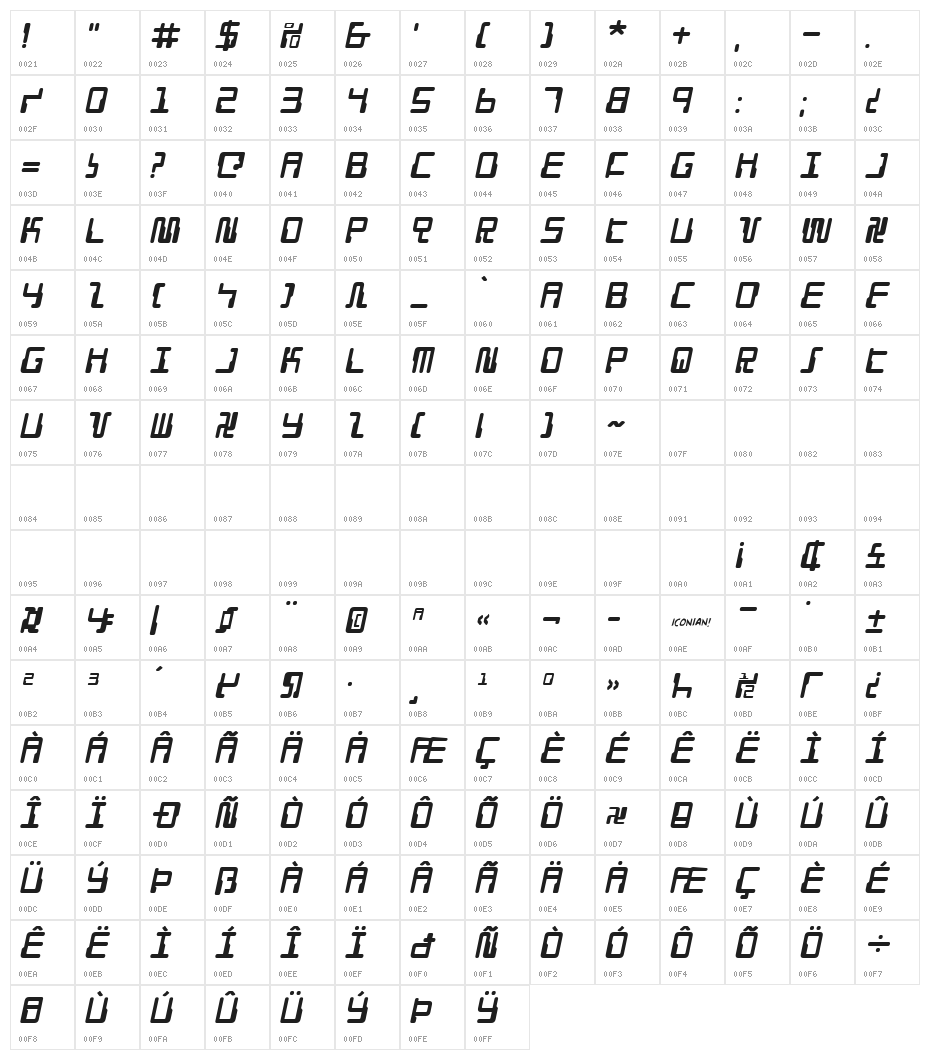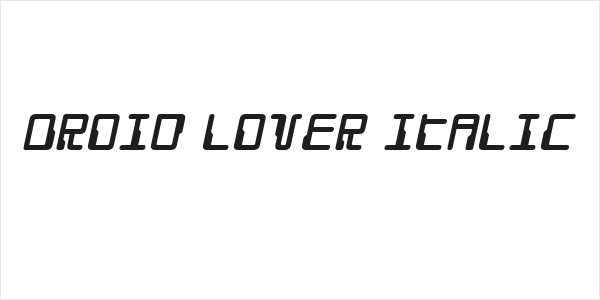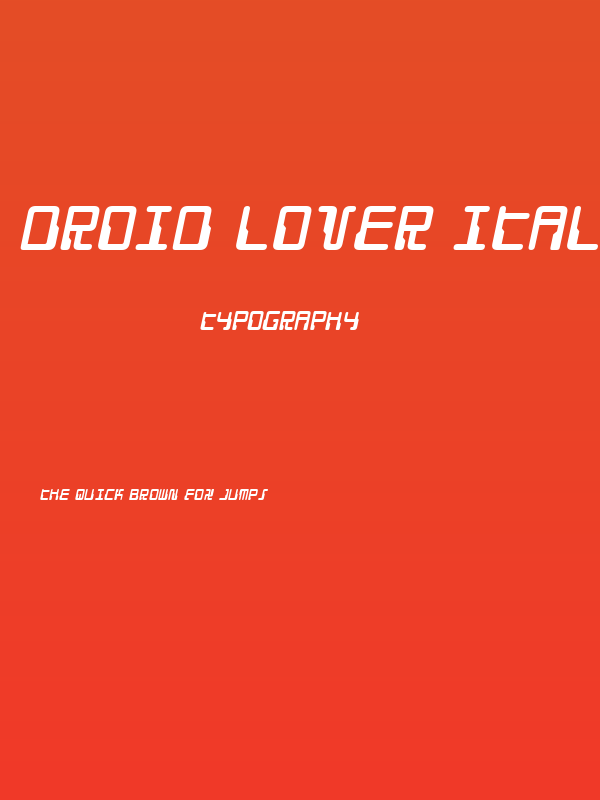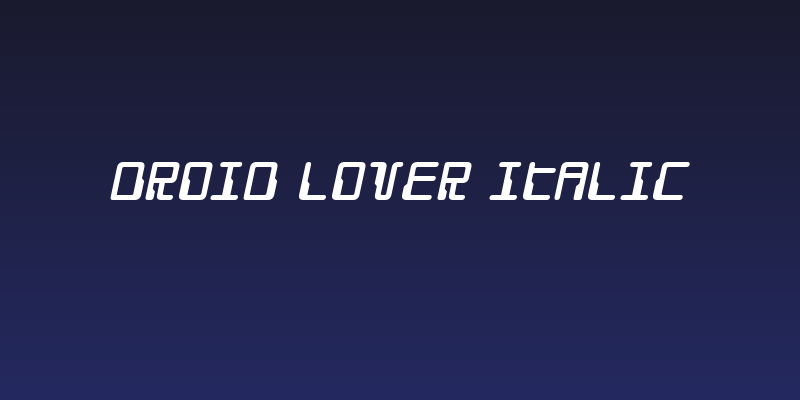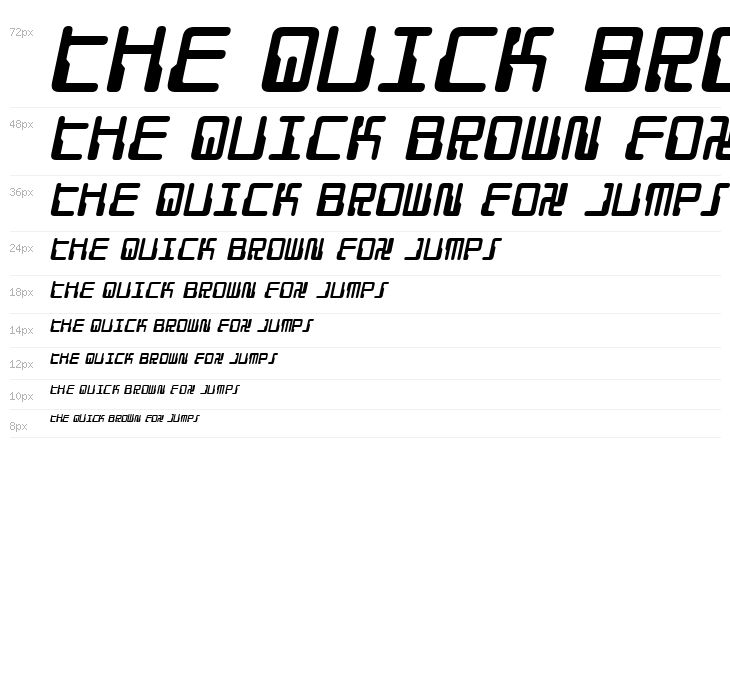
Droid Lover Italic Font
Droid Lover Italic Description
This font features a futuristic and tech-inspired design with a distinct italic slant, giving it a dynamic and forward-moving appearance. The characters are constructed with a geometric precision, featuring rounded edges and consistent stroke thickness that contribute to its modern aesthetic. The uppercase and lowercase letters maintain a uniform style, while the numerals and special characters seamlessly integrate into the overall design. The font's unique style makes it suitable for projects that require a contemporary and innovative look.
| Use Case | Logos, Headlines, Digital Interfaces |
| Proposed Projects | Ideal for technology branding, sci-fi themed projects, digital interfaces, and modern advertising campaigns. |